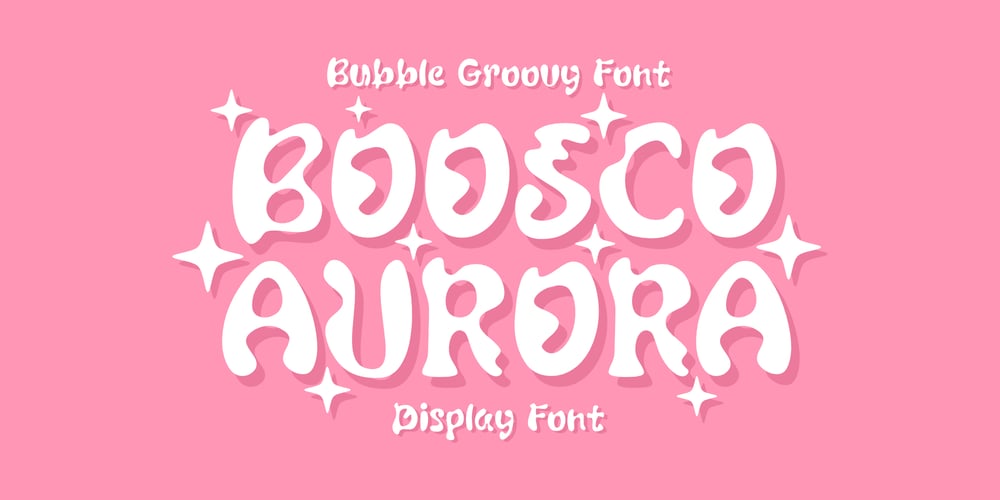
Boosco Aurora
Boosco Aurora font
Boosco Aurora Font Family was designed by Eka Rifqi Setiawan and published by Erifqizefont. Boosco Aurora contains 1 styles and family package options. Boosco Aurora is a vibrant and lively display font that radiates fun and energy. With its bubbly shapes and playful curves, it captures the essence of joy and excitement. Perfect for cheerful designs, party invitations, and anything that needs a splash of whimsy, Boosco Aurora adds a delightful touch to any project.